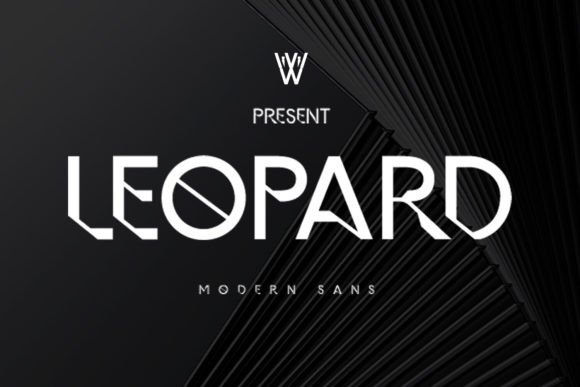
The Quest for the Perfect Font: Discovering Business Modern Sans Font
I still remember the frustration of scrolling through font libraries, searching for that one perfect typeface for a client’s futuristic-themed project. The brief was clear: something modern, sleek, and evocative of the Y2K era. That’s when I stumbled upon the Business Modern Sans Font, specifically designed with a futuristic and Y2K aesthetic in mind. It was love at first sight! In this article, I’ll share my experience with this stunning font, its features, and how to make the most of it in your designs.
Meet Business Modern Sans Font
Business Modern Sans Font, also known as Leopard, is a modern display sans serif font. Its clean lines, geometric shapes, and futuristic feel make it an excellent choice for designs that require a bold and contemporary look. This font is particularly suitable for projects that scream “futuristic” and “Y2K,” such as poster designs, magazines, comics, logos, and even embroidered products like bags, jackets, and sweaters.
- ✨ Versatility: Business Modern Sans Font is incredibly versatile, making it perfect for a wide range of design applications.
- ✅ Legibility: The font’s clean design ensures excellent legibility, even at smaller sizes.
- 💥 Impact: Its bold and futuristic style is sure to grab attention and make your designs stand out.
- 🎨 Customization: With OpenType features and glyphs, you can experiment with different styles and alternates to tailor the font to your project’s needs.
While Business Modern Sans Font is an excellent choice, there are a few minor considerations to keep in mind:
- 🤔 Limited use in body text: Due to its bold and futuristic nature, this font might not be the best choice for lengthy body text. It’s better suited for headings, titles, and short paragraphs.
- ⚠️ Overuse: As with any bold font, be cautious not to overuse it, as it may become overwhelming.
Business Modern Sans Font was designed with the futuristic and Y2K themes in mind. The creator aimed to craft a font that would evoke a sense of innovation and forward-thinking. Inspired by the sleek lines and geometric shapes of modern technology, this font is perfect for designers who want to push the boundaries of their creative projects.
Q: What type of projects is Business Modern Sans Font best suited for?
A: Business Modern Sans Font is ideal for projects that require a modern, futuristic, or Y2K-inspired look, such as poster designs, magazines, comics, logos, and embroidered products.
Q: Can I use Business Modern Sans Font for body text?
A: While possible, Business Modern Sans Font is better suited for headings, titles, and short paragraphs due to its bold and futuristic nature.
Q: Does Business Modern Sans Font support OpenType features?
A: Yes, Business Modern Sans Font supports OpenType features, allowing you to experiment with different styles and alternates to customize your text.